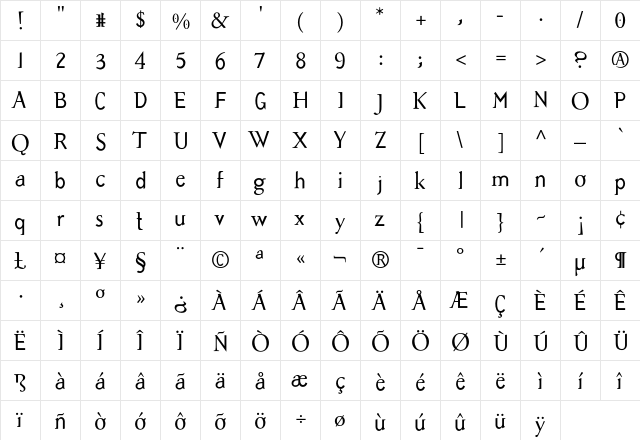
Missive Regular
Design Context for Missive Typeface
Missive offers clean, dependable letterforms without strong stylistic allegiance, making it a practical choice for designers who need flexibility.
Pro Tip: Pair Missive with a font of contrasting weight or personality to build a more expressive typographic hierarchy.